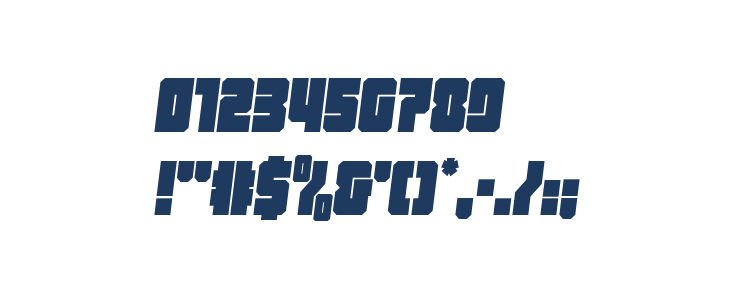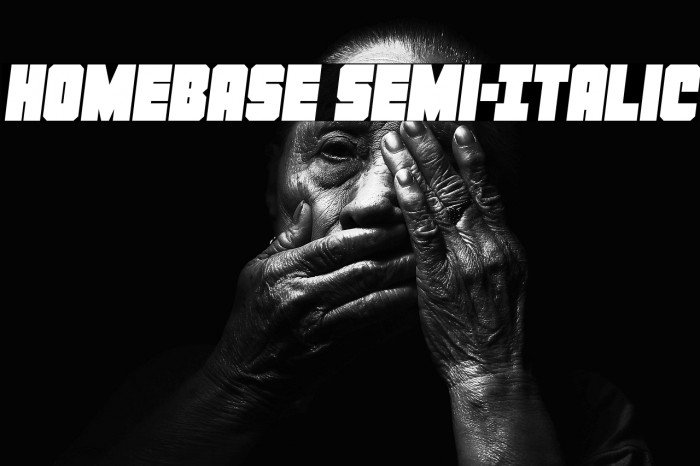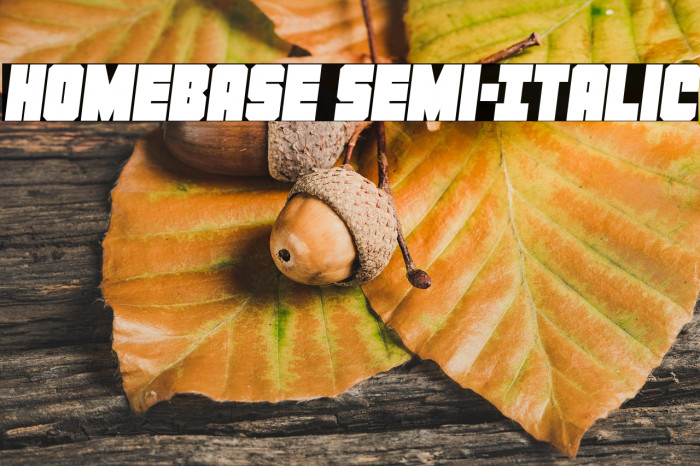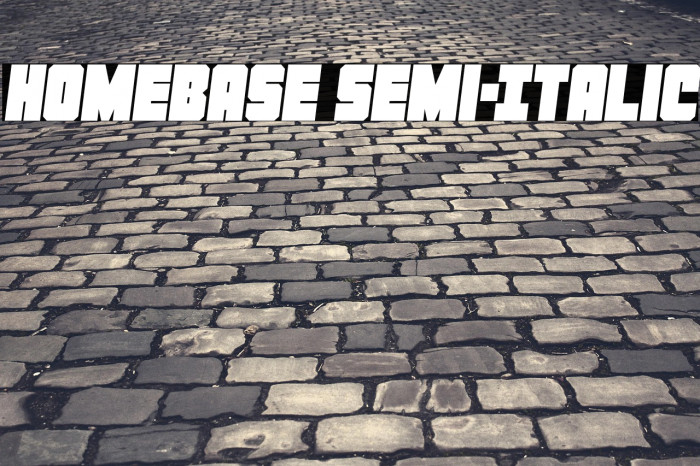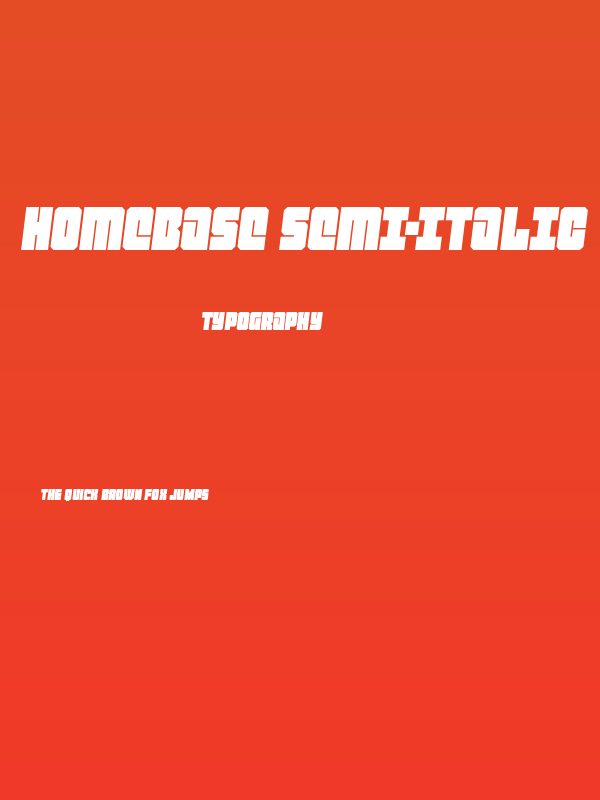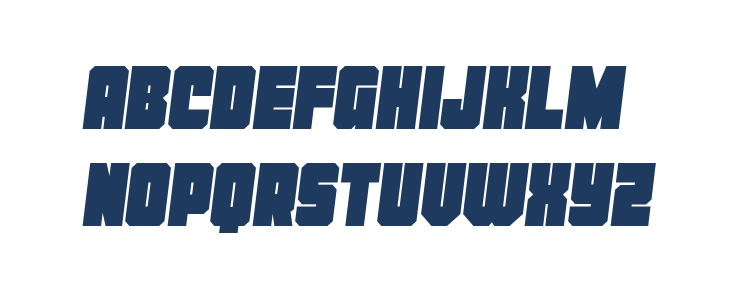
Homebase Semi-Italic Font
Homebase Semi-Italic Description
This font features a bold, geometric style with a strong presence. The characters are blocky and angular, giving it a futuristic and assertive look. The semi-italic slant adds a dynamic feel, enhancing its modern appeal. The uppercase and lowercase letters maintain a consistent weight, while the numbers and special characters follow the same bold, impactful design. The font's solid structure and sharp edges make it highly legible, even at smaller sizes. It is ideal for projects that require a strong visual impact, such as branding, posters, and headlines.
| Proposed Projects | Ideal for branding, posters, headlines, and any project needing a bold statement. |